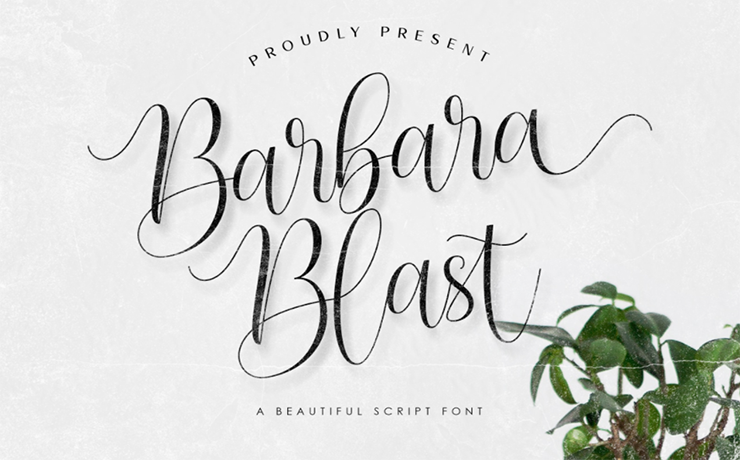
Barbara Blast Font is a stunning calligraphy typeface with swash. This font will add a feminine touch to make your design more soft and beautiful. Ideal for wedding invitations, quotes, branding, packaging, etc.
This beautiful script is for those who want to add a pinch of beauty and style to their design. That was designed and shared by Rochart Studio.
It is a feminine striped rough handwritten typeface that gives a comfortable and natural feel. Because this font has a high contrast with a very clear texture.
If you see at its glyphs, you will see that the designer has designed each glyph with the help of markers and then added curves around the font.
This lovely script typeface is particularly well-suited for wedding invitations, save-the-date cards, sophisticated, feminine branding, special quotes, romantic cards, birthday cards, printing on mugs, and many other coolest thing as well.
This typeface is provided in one font style that also supports Multi-language, some Stylistic alternate, and Ligatures.